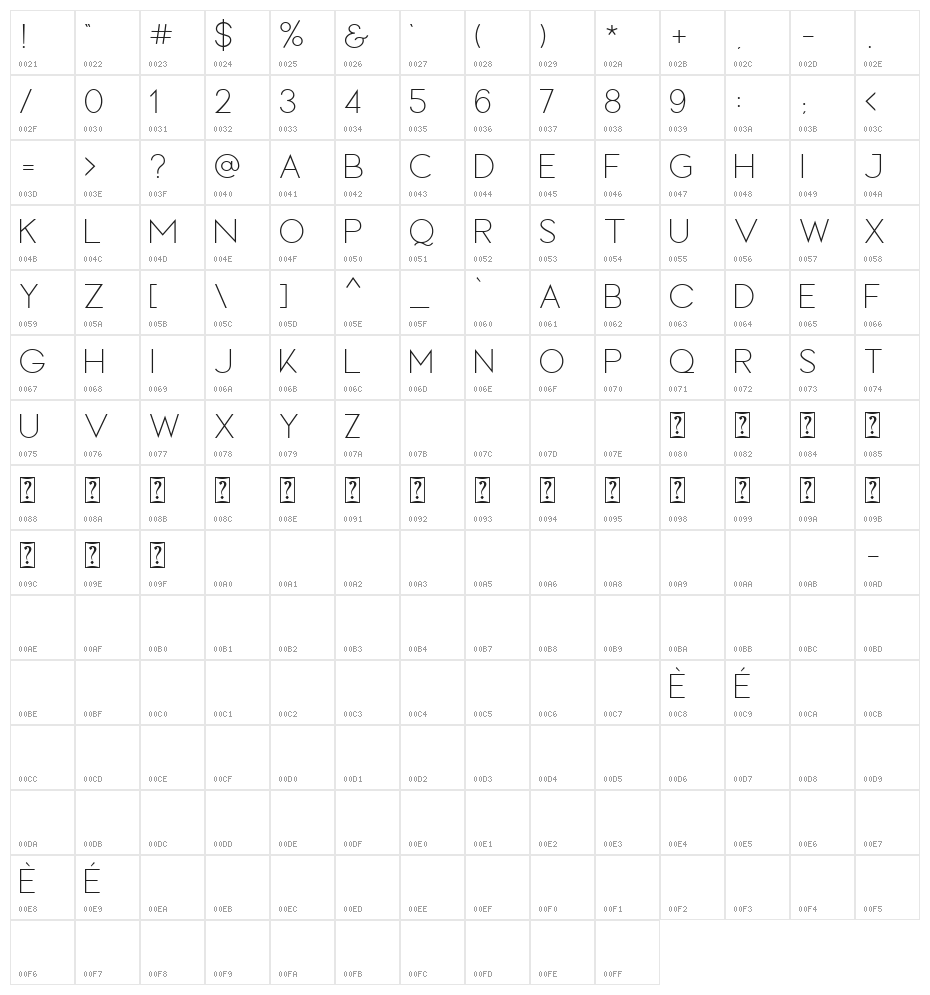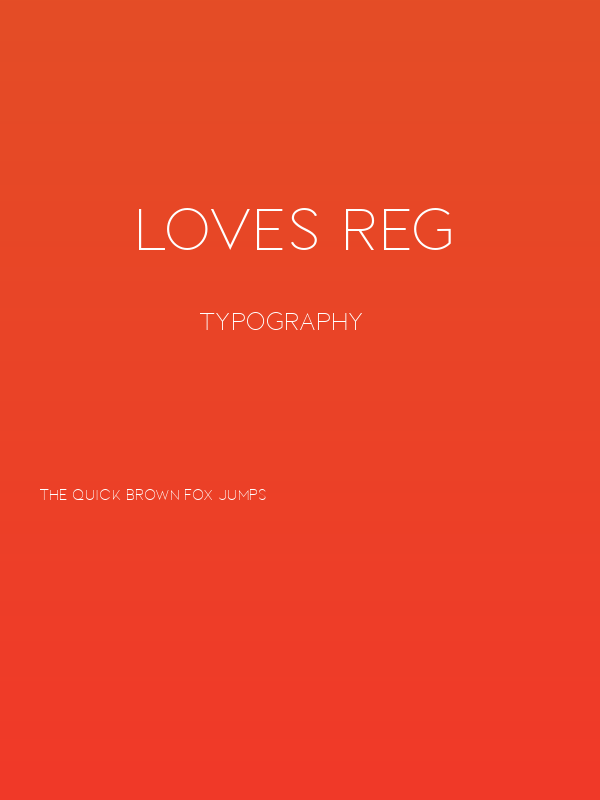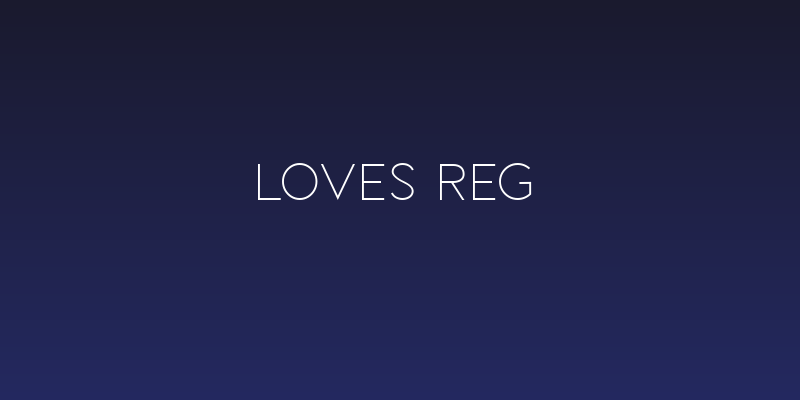
LOVES REG Font
LOVES REG Description
This font exhibits a clean and modern aesthetic with a geometric sans-serif style. The characters are evenly spaced and feature a uniform stroke width, contributing to a minimalist and contemporary look. The uppercase and lowercase letters are well-proportioned, with a slight emphasis on verticality, giving the font a sleek and streamlined appearance. The numerals are clear and legible, maintaining the same geometric precision as the alphabet. Special characters are included, matching the overall design ethos with simplicity and clarity.
Use CaseHeadlines, Body text, Logos
Proposed ProjectsIdeal for branding, advertising, web design, and editorial layouts where a modern and clean look is desired.